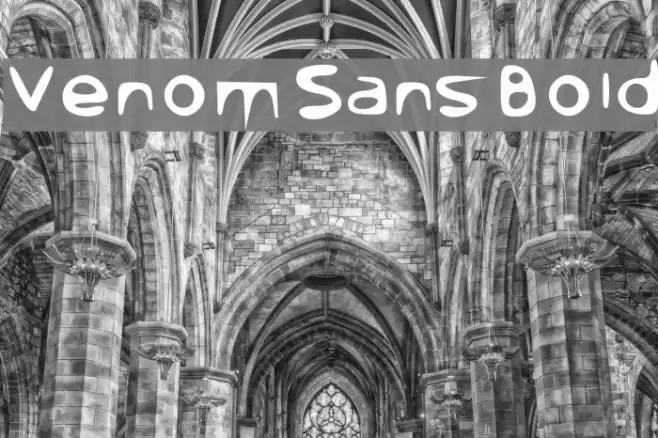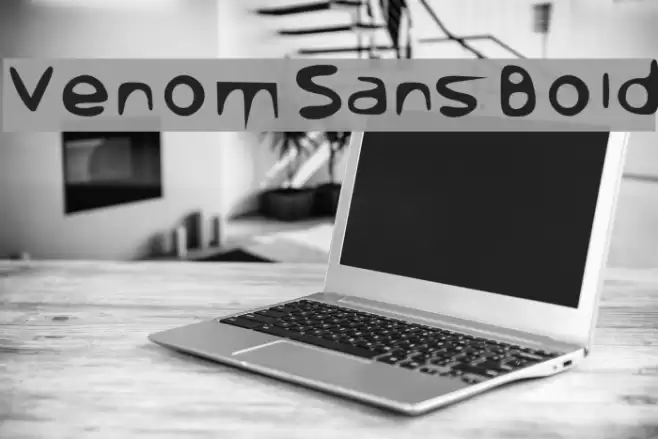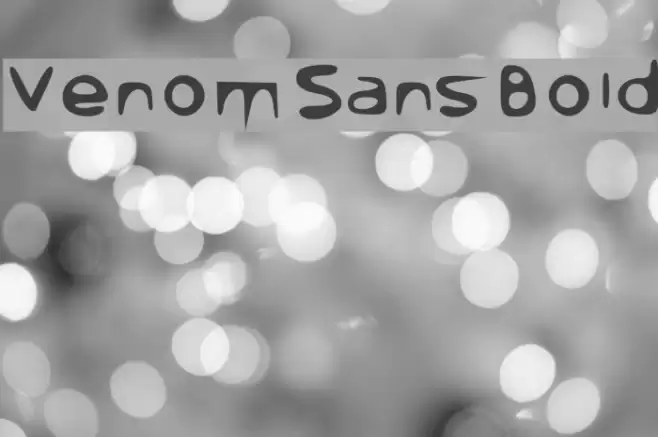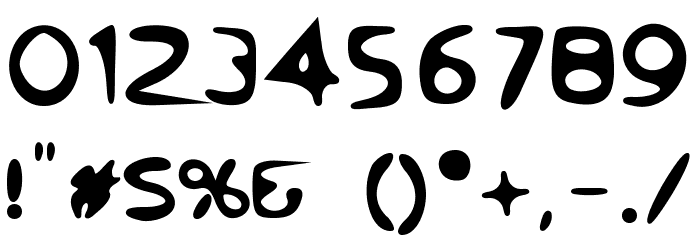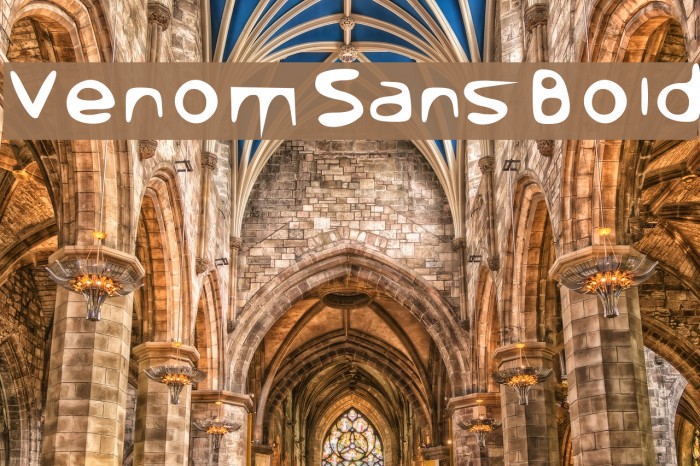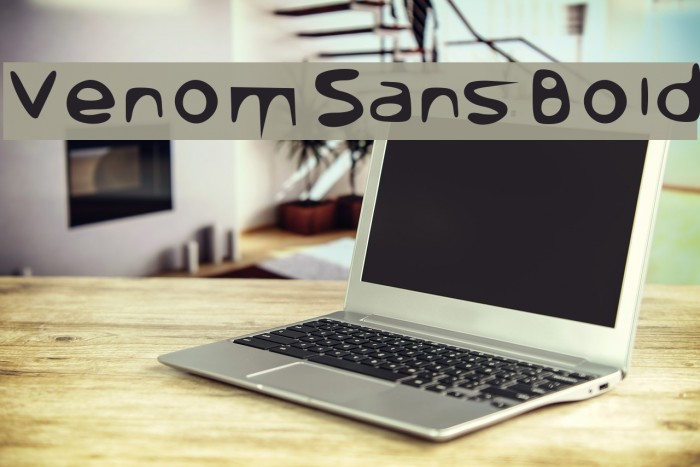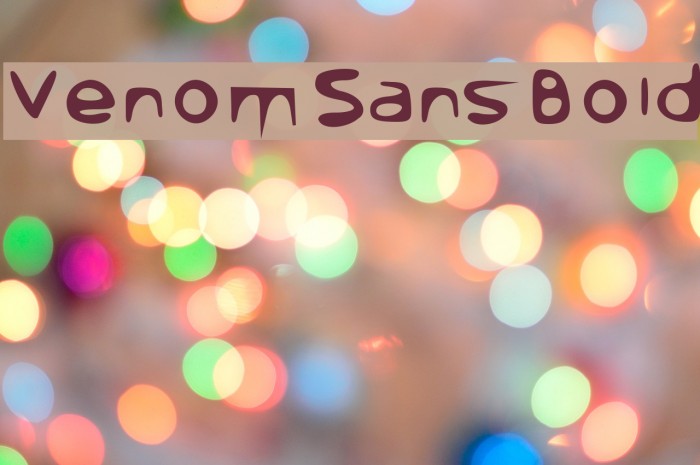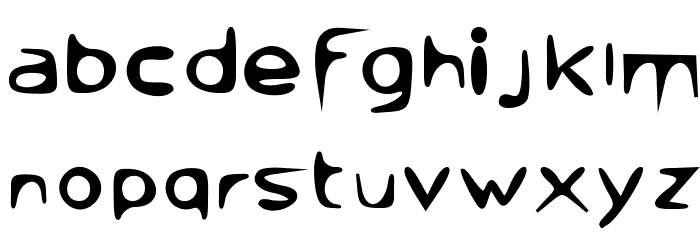
Venom Sans Bold Font
Venom Sans Bold Description
This font features a bold and dynamic style with a playful, organic feel. The characters have a unique, fluid appearance, with varying stroke thickness that adds a sense of movement and energy. The uppercase letters are bold and slightly irregular, while the lowercase letters maintain a consistent flow with distinctive curves and angles. The numbers are equally bold, with a quirky, artistic flair. Special characters are creatively designed, adding to the font's overall whimsical and expressive nature. This font is ideal for projects that require a bold statement and a touch of creativity.
A bold, dynamic font with a playful, organic style and fluid, energetic characters from Uncategorized fonts.